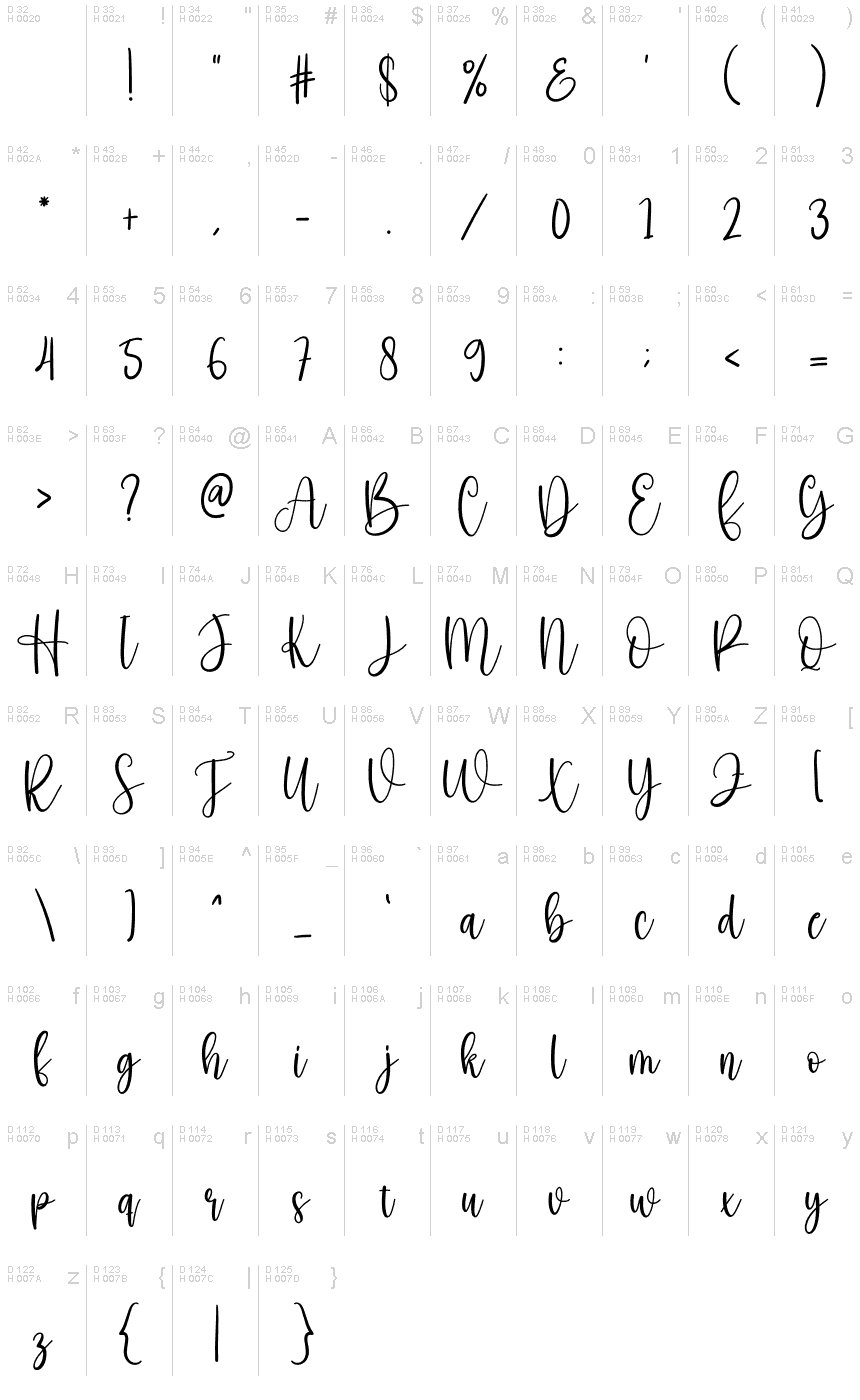
Autography
Autography, designed by scratchones, is a unique handwritten font that adds a touch of personalization to any project. With its semi-light weight, Autography has a subtle elegance that makes it perfect for wedding invitations or greeting cards. Its handwritten style also makes it suitable for adding a personal touch to social media graphics or blog posts. This font typeface can be used in various projects such as branding, advertising, packaging design and even book covers. Autography stands out among other fonts due to its organic and imperfect nature, giving your designs an authentic feel.
the latest style letters are perfect for wall displays, wedding invitations, social media post logos, advertisements, product packaging, product designs, labels, photography, watermarks, invitations, stationery, and any project that requires taste handwriting.